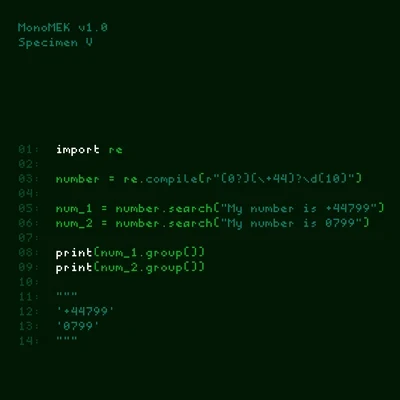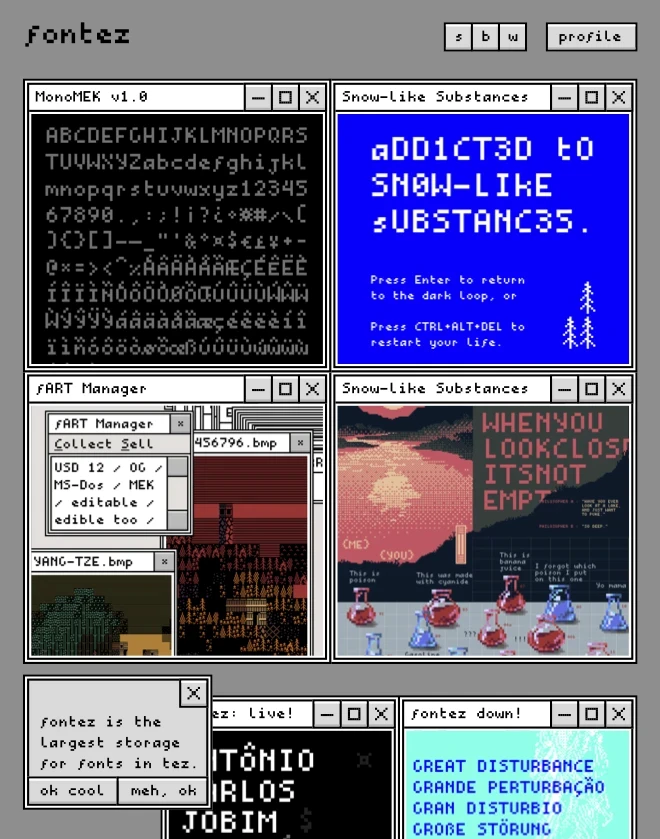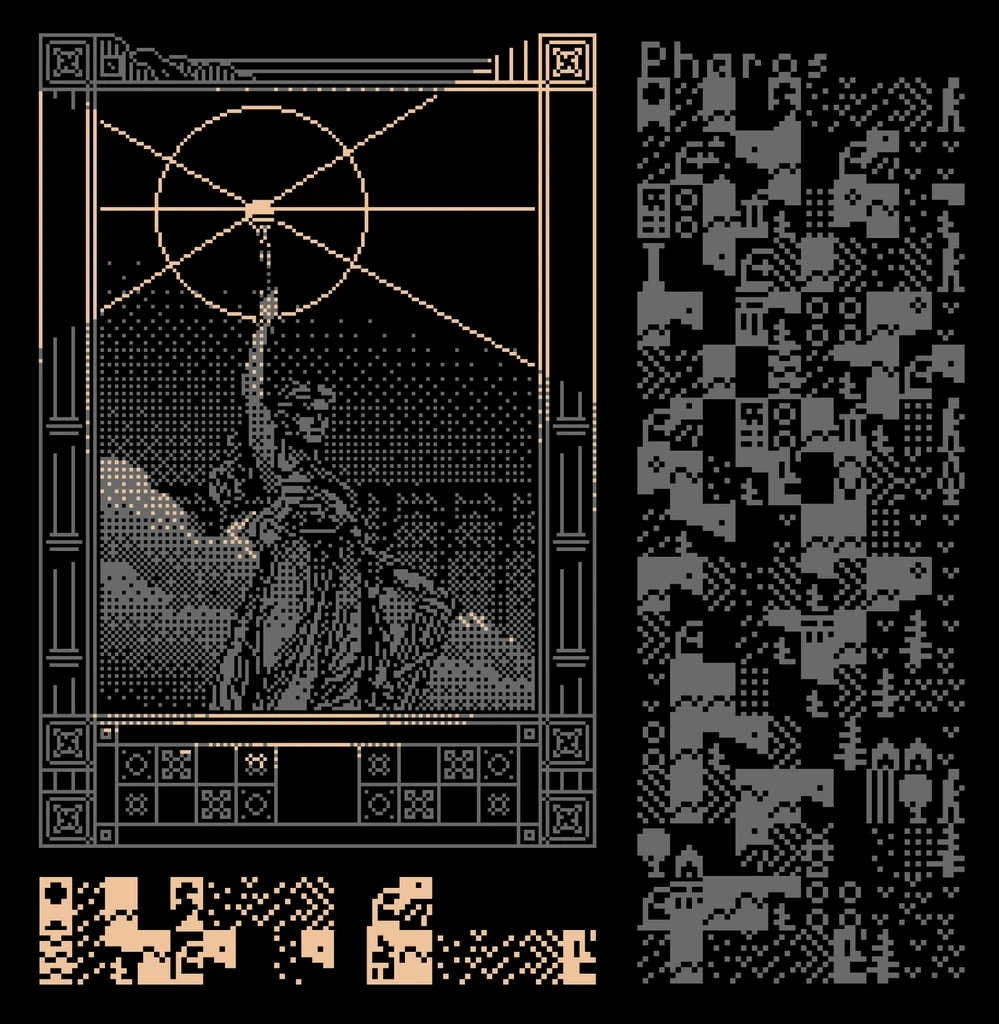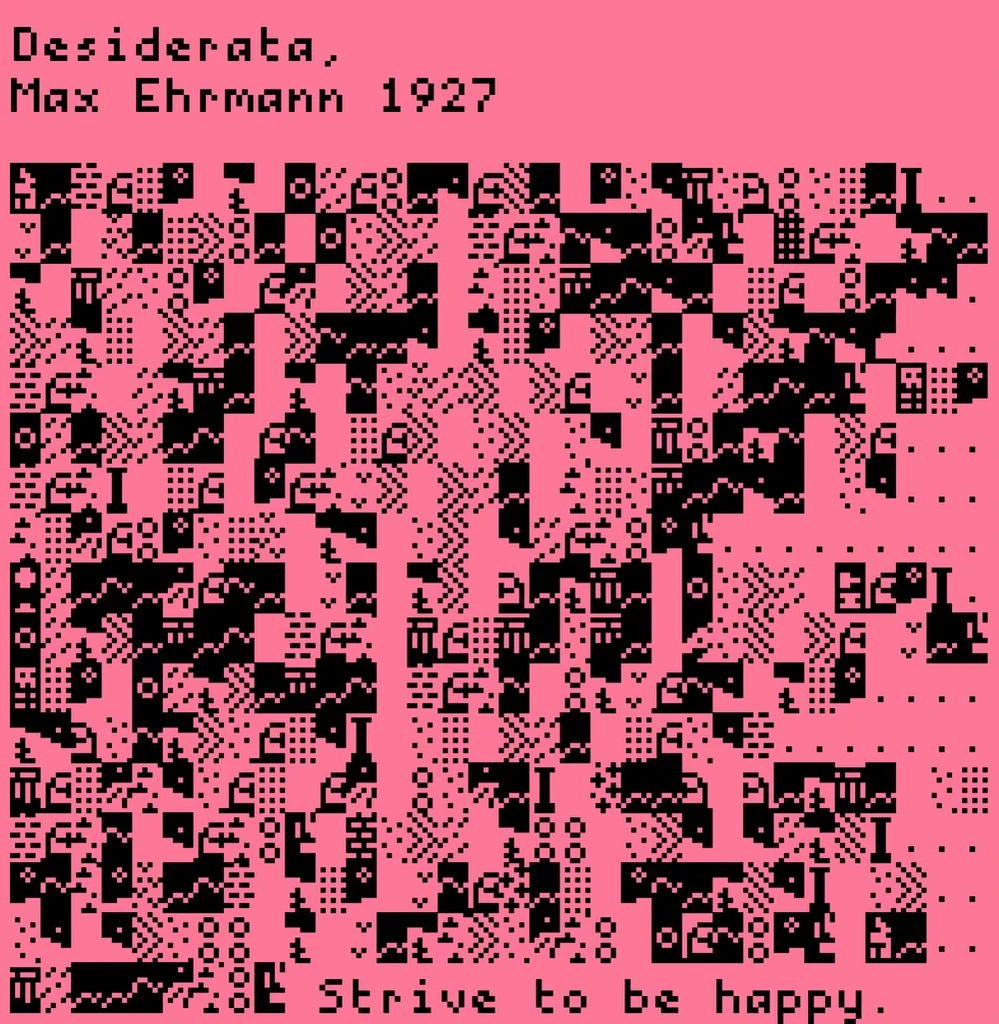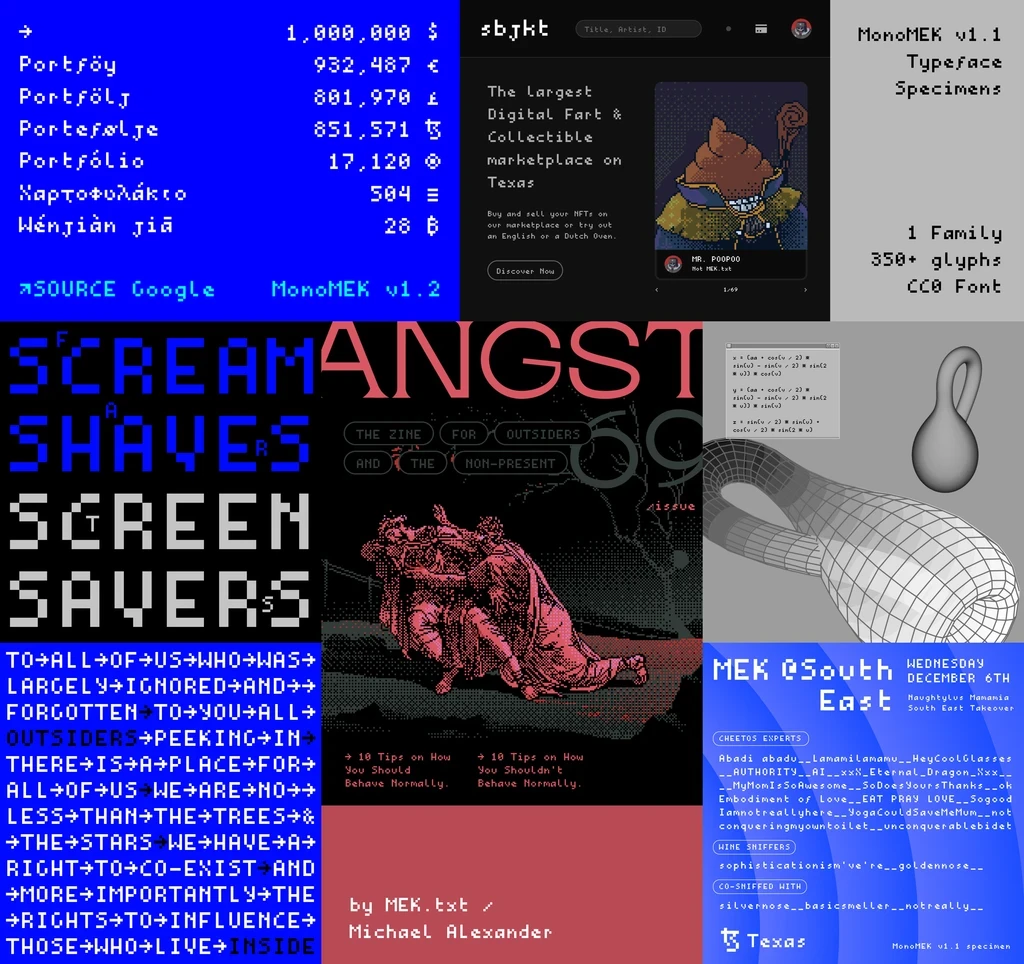
A CC0, non-pixel perfect monotype made by MEK.txt.
MonoMEK is a downloadable CC0 font. A passion project of MEK.txt, MonoMEK has been featured in various artwork, exhibition, and other projects. • • • The v1.2 update includes: 350+ Glyphs; Uppercase, lowercase, numbers, all basic symbols, Western + South Eastern EU glyphs, and Chinese pinyin ready; Including 100+ symbols (dings) glyph.